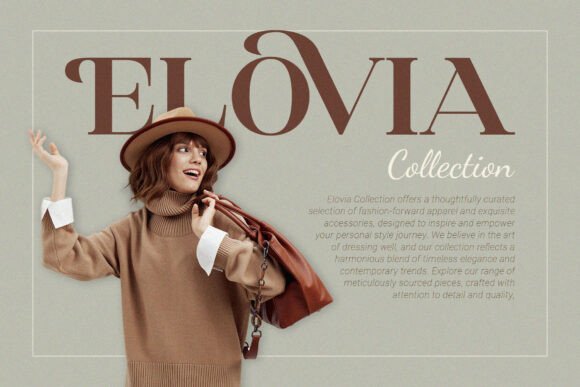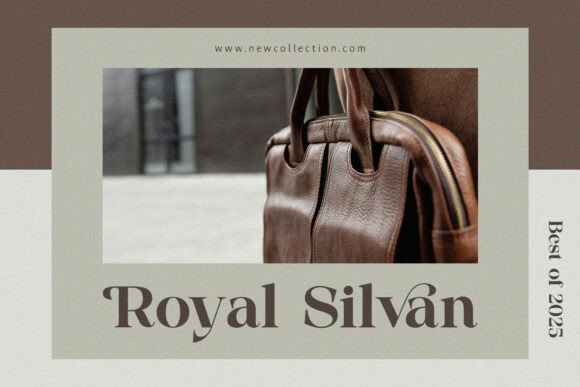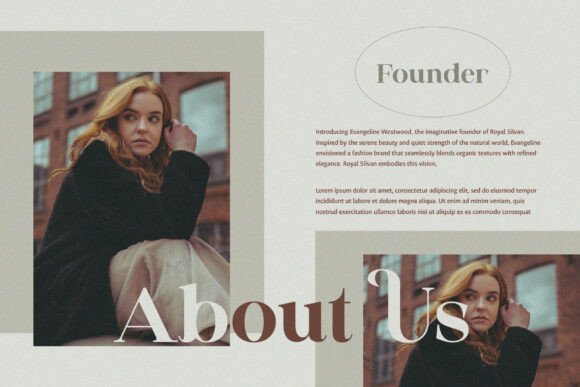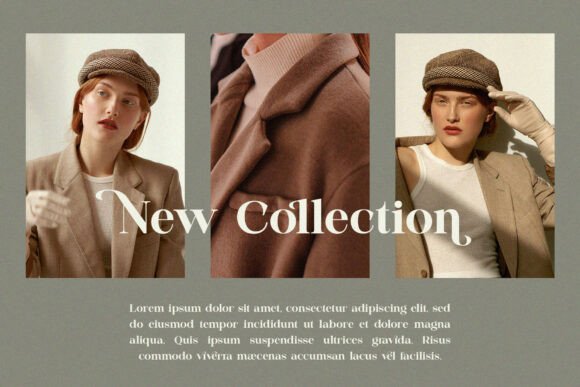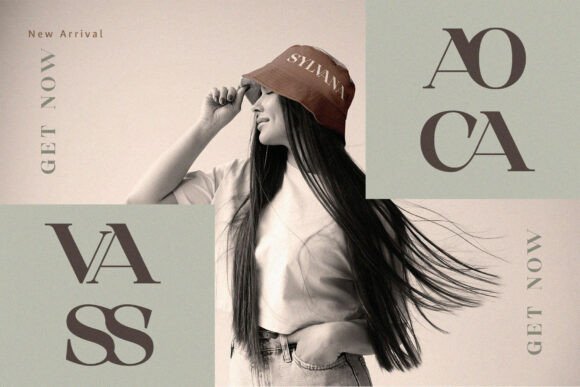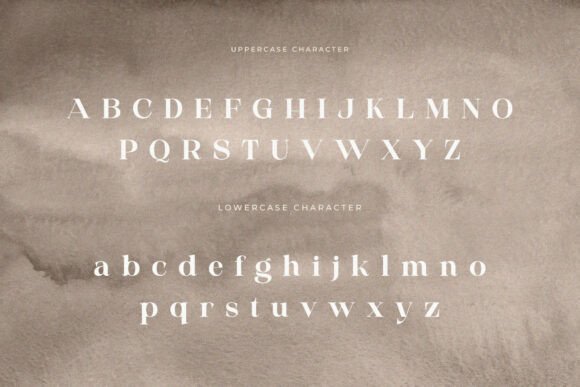
Introduction to Silneva Font
As a designer, there’s nothing quite like the thrill of bringing a creative project to life. You’ve poured your heart and soul into every detail, from the initial concept to the final presentation. But sometimes, it’s the little things that make all the difference – like choosing the perfect font to elevate your design and leave a lasting impression. That’s where the Silneva Font comes in.
With its stunning display serif design, the Silneva Font adds a touch of sophistication and timeless charm to any project. Whether you’re creating branding materials, designing invitations, or crafting magazine titles, this elegant font is sure to make your work stand out. And with its high-quality design, you can trust that your project will look its best – even on a transparent background.
As a valuable resource for designers, the Silneva Font offers a level of refinement and professionalism that’s hard to find in free downloads. Its classic elegance makes it perfect for upscale packaging, luxury branding, and other high-end design projects where beauty and professionalism are equally important.
Key Features of Silneva Font
- High-quality design for creative projects, ideal for use in digital and print media
- Features a unique, elegant style that adds a touch of sophistication to any design
- Perfect as a design resource for logos, typography, and other creative projects
Honest Review: Silneva Font
As a designer, I’m always on the lookout for high-quality fonts that can elevate my creative projects. The Silneva Font is one of the latest additions to my design resource library, and I’m excited to share my thoughts on it.
- ✨ Unique design style: The Silneva Font has a distinctive, elegant look that’s perfect for creative projects that require a touch of sophistication.
Any limitations:
- ⚠️ Limited font weights: While the Silneva Font is available in several weights, the selection is somewhat limited compared to other fonts in its class.
Overall, the Silneva Font is a solid addition to any designer’s library. Its unique design style and high-quality files make it a great choice for creative projects, and the free download option is a major plus. While it has some limitations, I’m excited to continue using the Silneva Font in my future projects.
Tips for Getting the Most Out of Silneva Font
To get the most out of the Silneva Font, use it with a transparent background to create a modern and sleek design. You can also experiment with different font sizes and colors to achieve the desired effect.
The Silneva Font is ideal for a wide range of creative projects, including business cards, brochures, posters, and social media graphics. Its high-quality design makes it a great choice for any project that requires a professional and modern look.